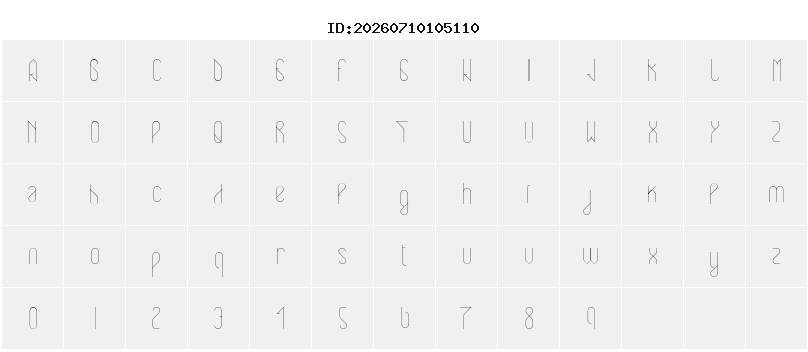
• Font Name: Ecliptic
• Font Style: Light
• Full Font Name: Ecliptic Light
About Ecliptic.ttf
Ecliptic.ttf is a modern, elegant sans-serif font designed for ultimate readability and visual harmony. Perfect for branding, headlines, web design, and print materials.